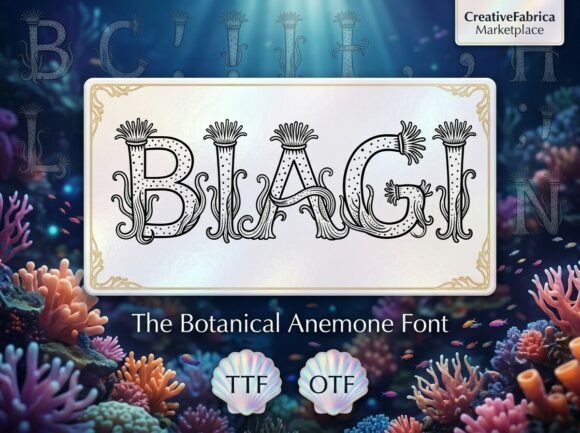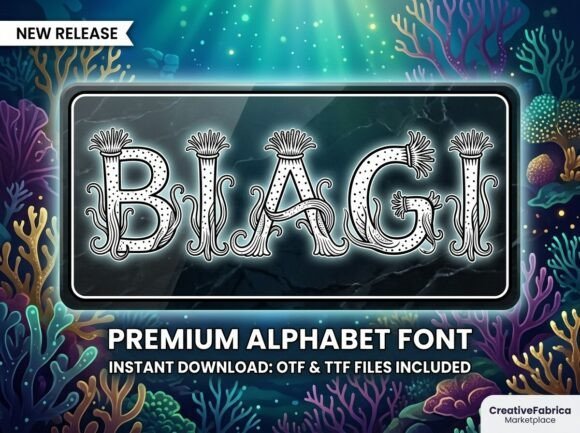
Introduction to Biagi Font
Immerse yourself in an underwater wonderland with Biagi, an aquatic display typeface that captures a “fluid-and-floral” soul.
This font features elegant, elongated letterforms uniquely characterized by rhythmic, hand-drawn “sea anemone” crowns and swirling kelp-like flourishes that bridge the gap between marine biology illustration and modern luxury branding With its medium structural weight and organic personality, Biagi is the premier choice for independent aquarium identities, boutique seafood restaurant logos, high-end tropical resort branding, and high-impact “mystical-and-marine” social media headers.